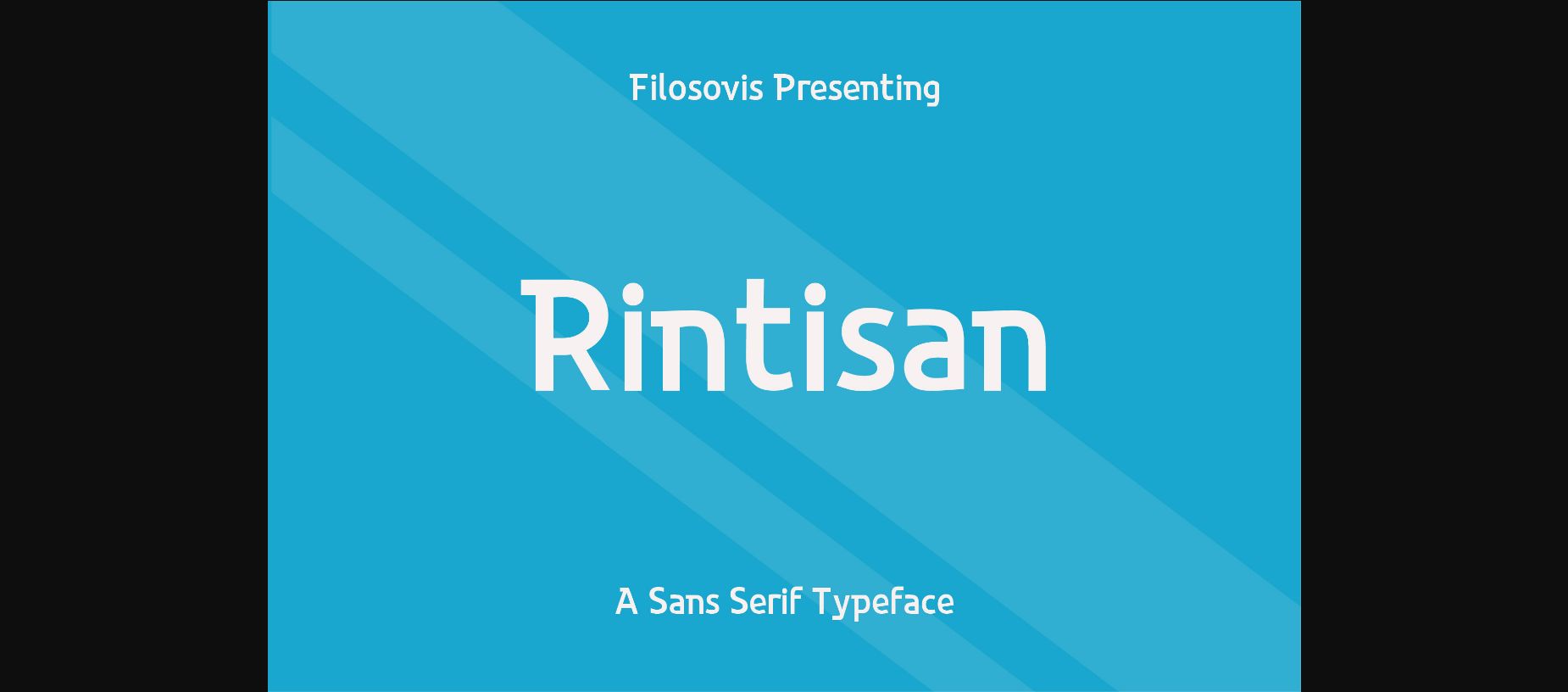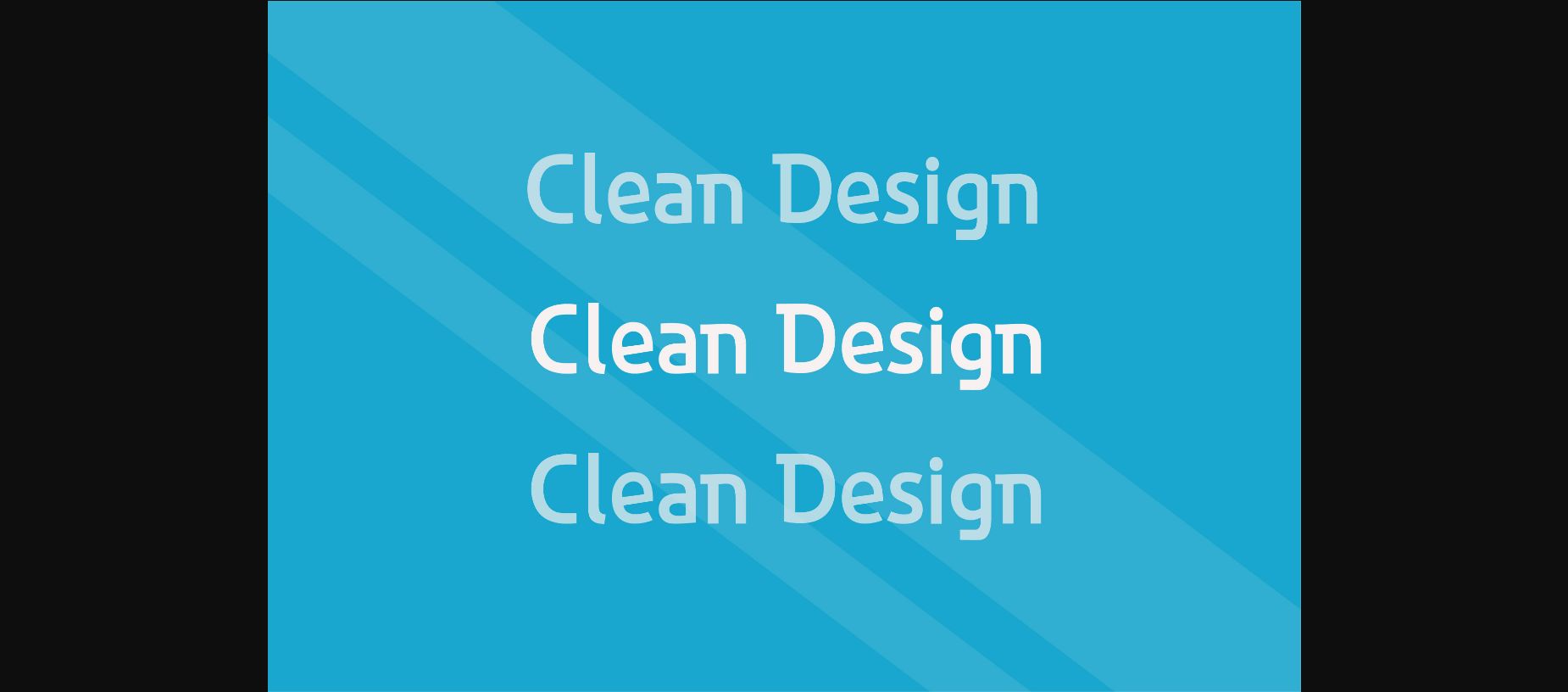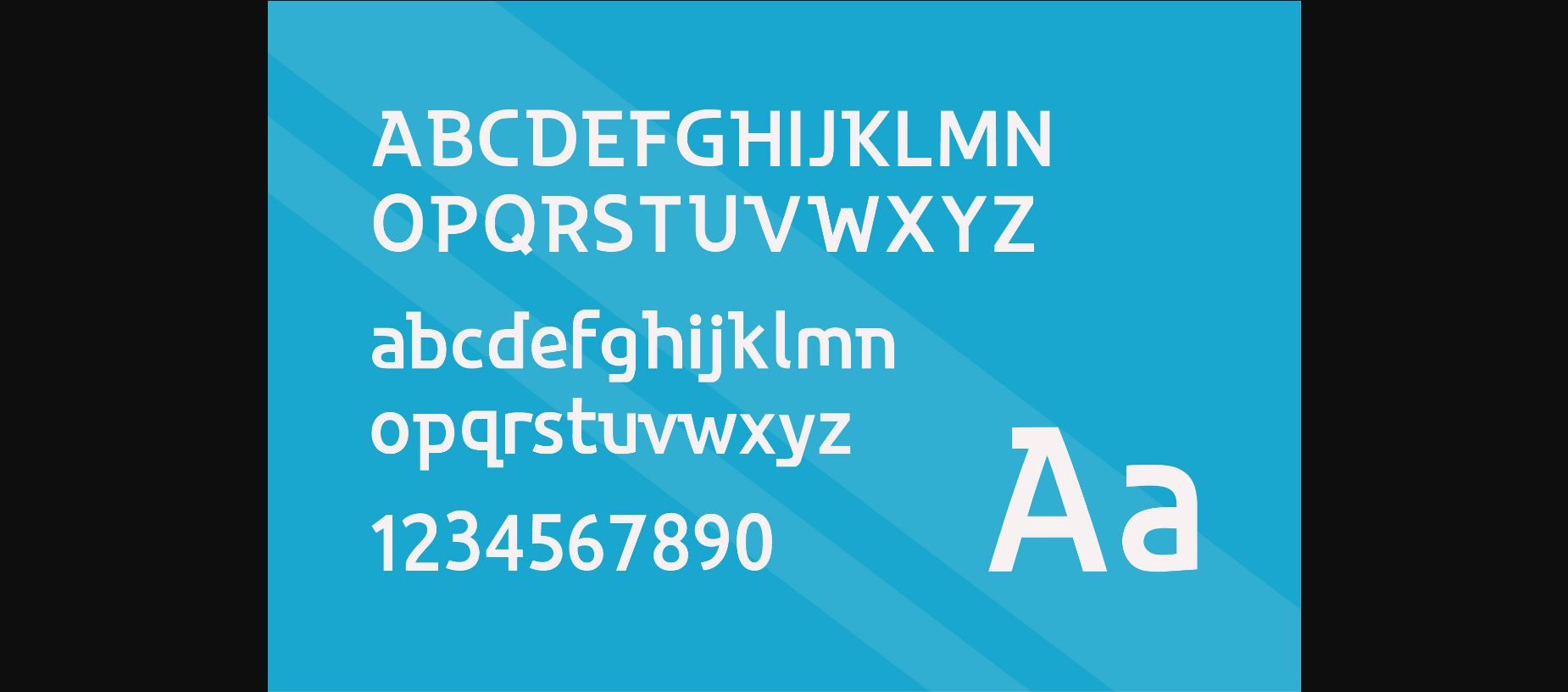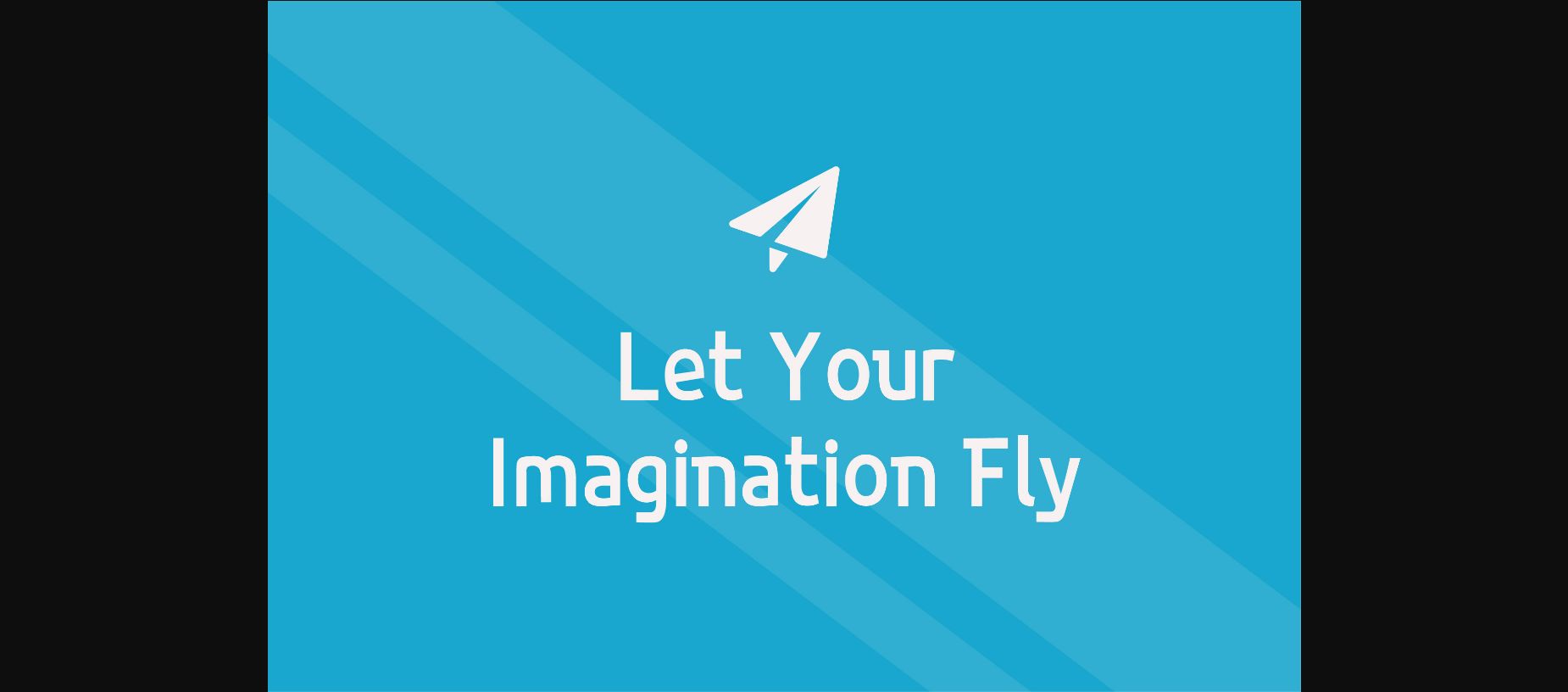
HomeSans Serif FontsRintisan Font Sans Serif Fonts Rintisan Font FacebookTwitterPinterestWhatsApp 1 of 6 ... Rintisan Font Poster 2... Rintisan Font Poster 3... Rintisan Font Poster 4... Rintisan Font Poster 5... Rintisan Font Poster 6... About Rintisan Font ‘Rintisan’ font is characterized by its modern and clean appearance. Add this beautiful display font to each of your creative ideas, and notice how it makes them stand out! DOWNLOAD NOW 214 0 People also explored Paisley Font Romantically Font Mousepad Font Overcoming Challenges Font Redpine Font Dustie Font Veggie Seedlings Font Eleua Bold Font Bestfriend Font Petrusum Unu Font Romance Valentine Moonstera Font TagsRintisan Font Previous articleLove Pumpkins FontNext articleNathin Flogina Font LEAVE A REPLY Cancel reply Comment: Please enter your comment! Name:* Please enter your name here Email:* You have entered an incorrect email address! Please enter your email address here Website: Save my name, email, and website in this browser for the next time I comment. Unlock Endless Creativity with the FREE September Clipart Huge Bundle (Valued at $700!) Personal Use Free DangeRNighT Font Personal Use Free Read more Lanilla Personal Use Free Read more Vincent Familiante Personal Use Free Read more Mold Papa Personal Use Free Read more BLOG Free Fonts Risk: Why Free Fonts Can Be Dangerous for Designers Free Fonts Risk: Why Free Fonts Can Be Dangerous for Designers Using free fonts is a common practice in web and graphic design. However, the... Using Fonts in Digital Marketing: Tips to Strengthen Your Brand Identity To increase your work productivity, choose the most readable fonts. The 10 Best Handwriting Fonts to Add Personality to Your Designs